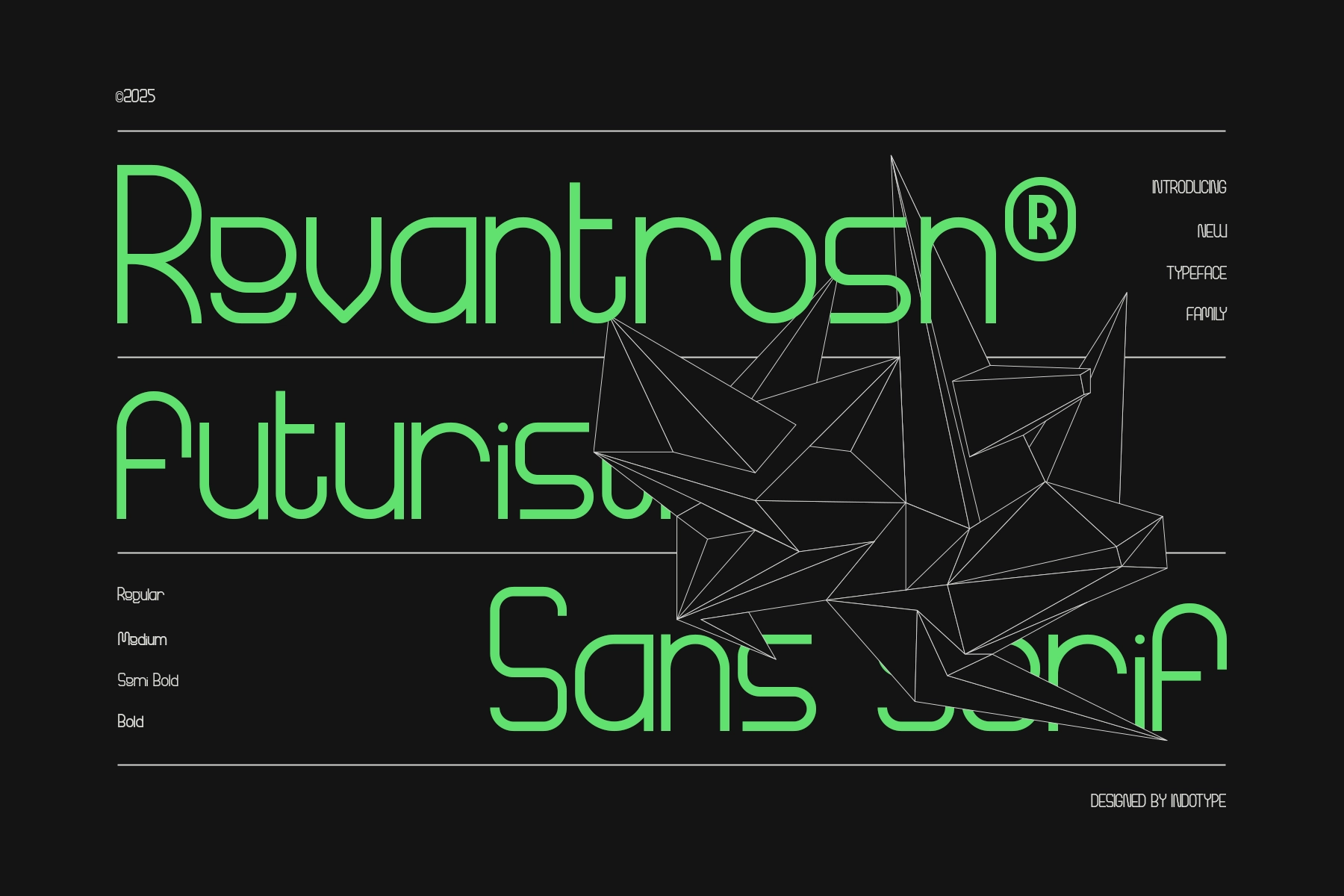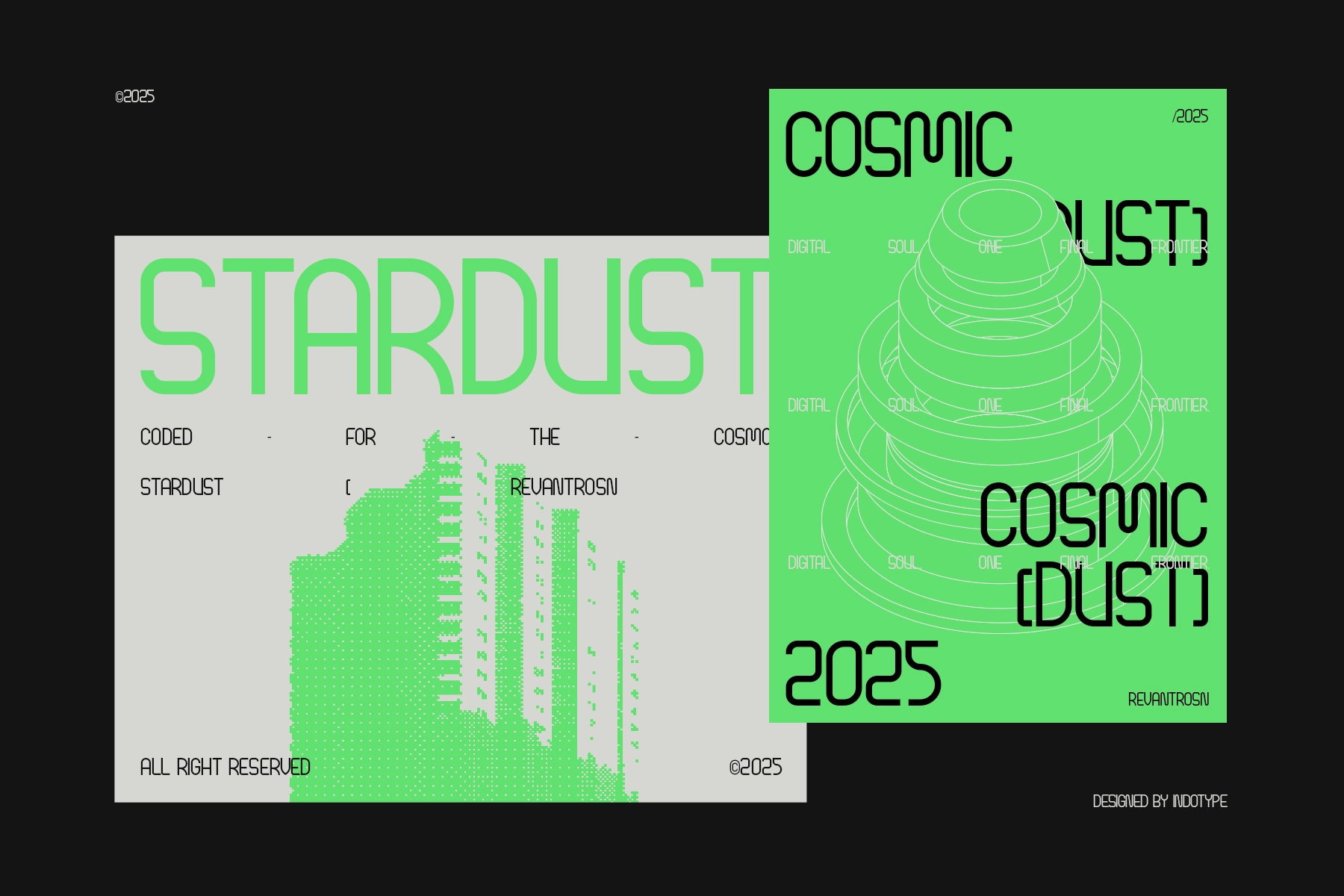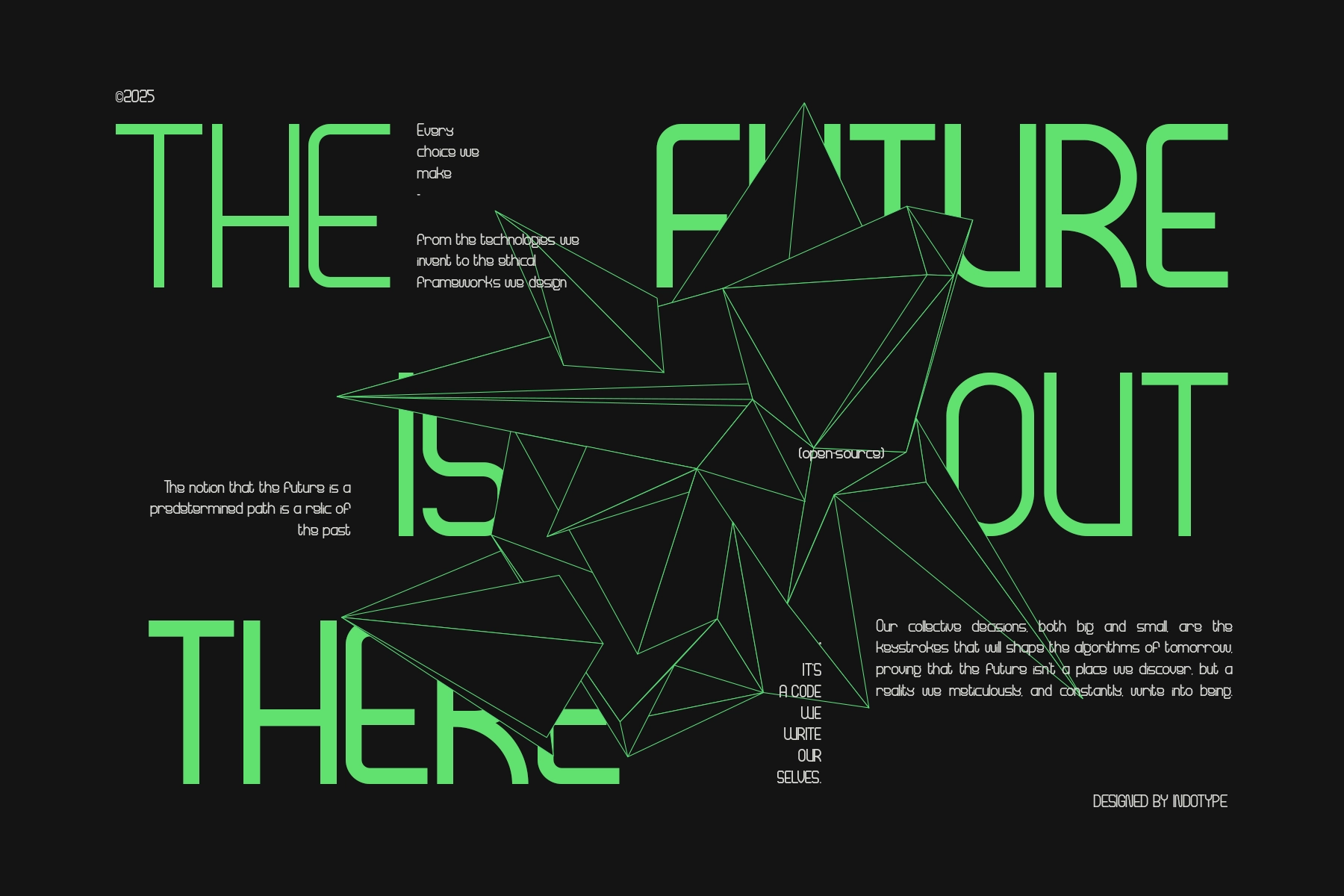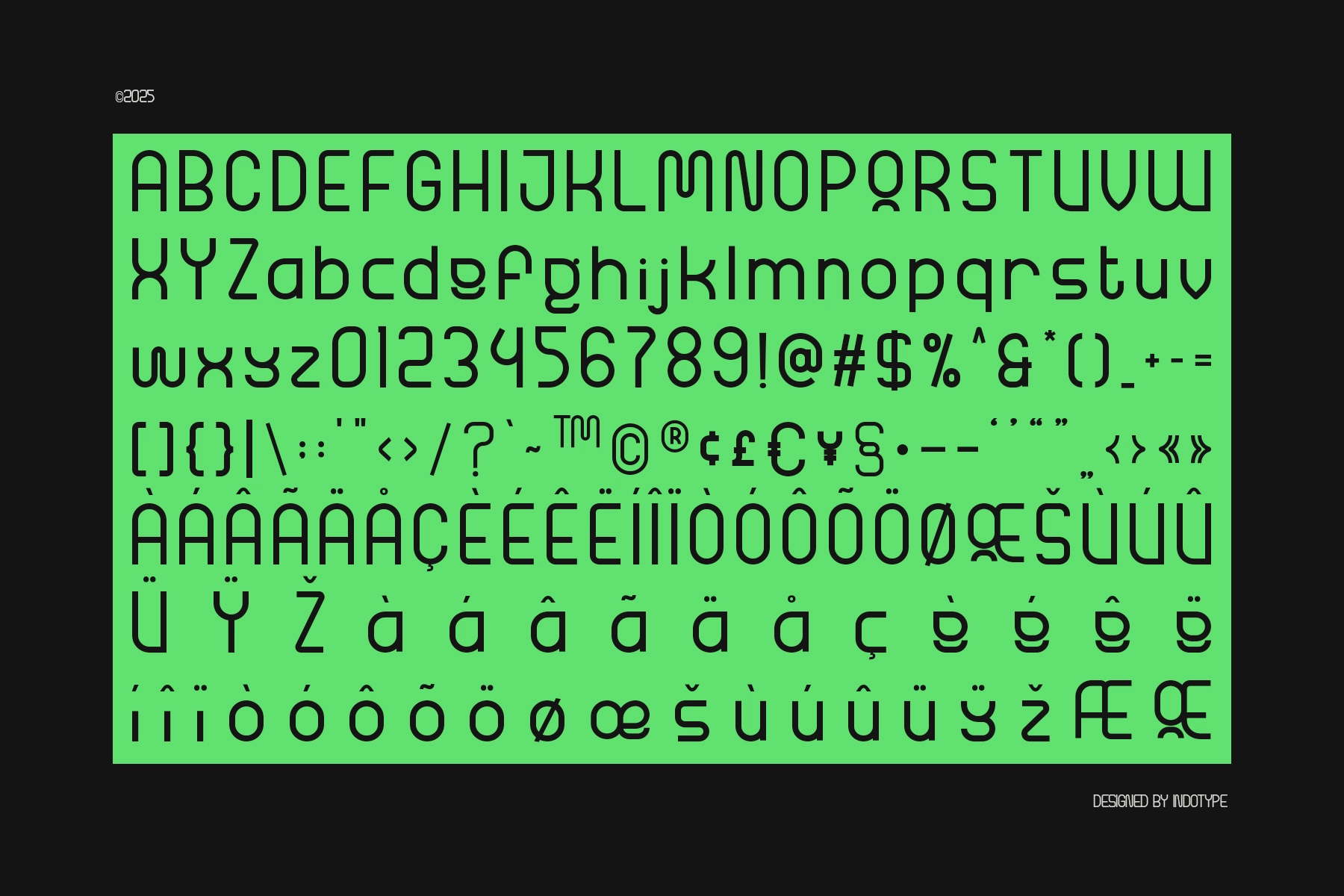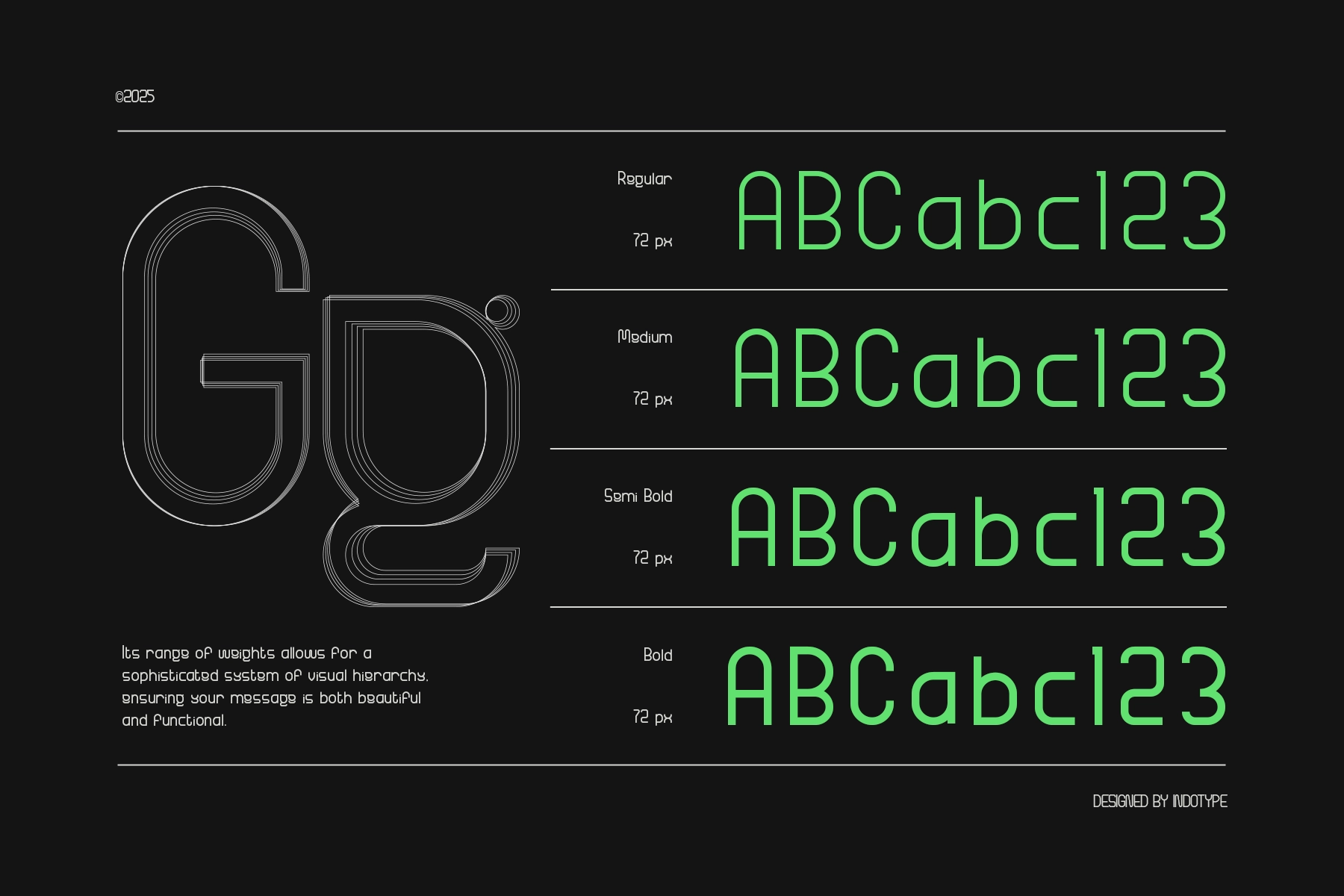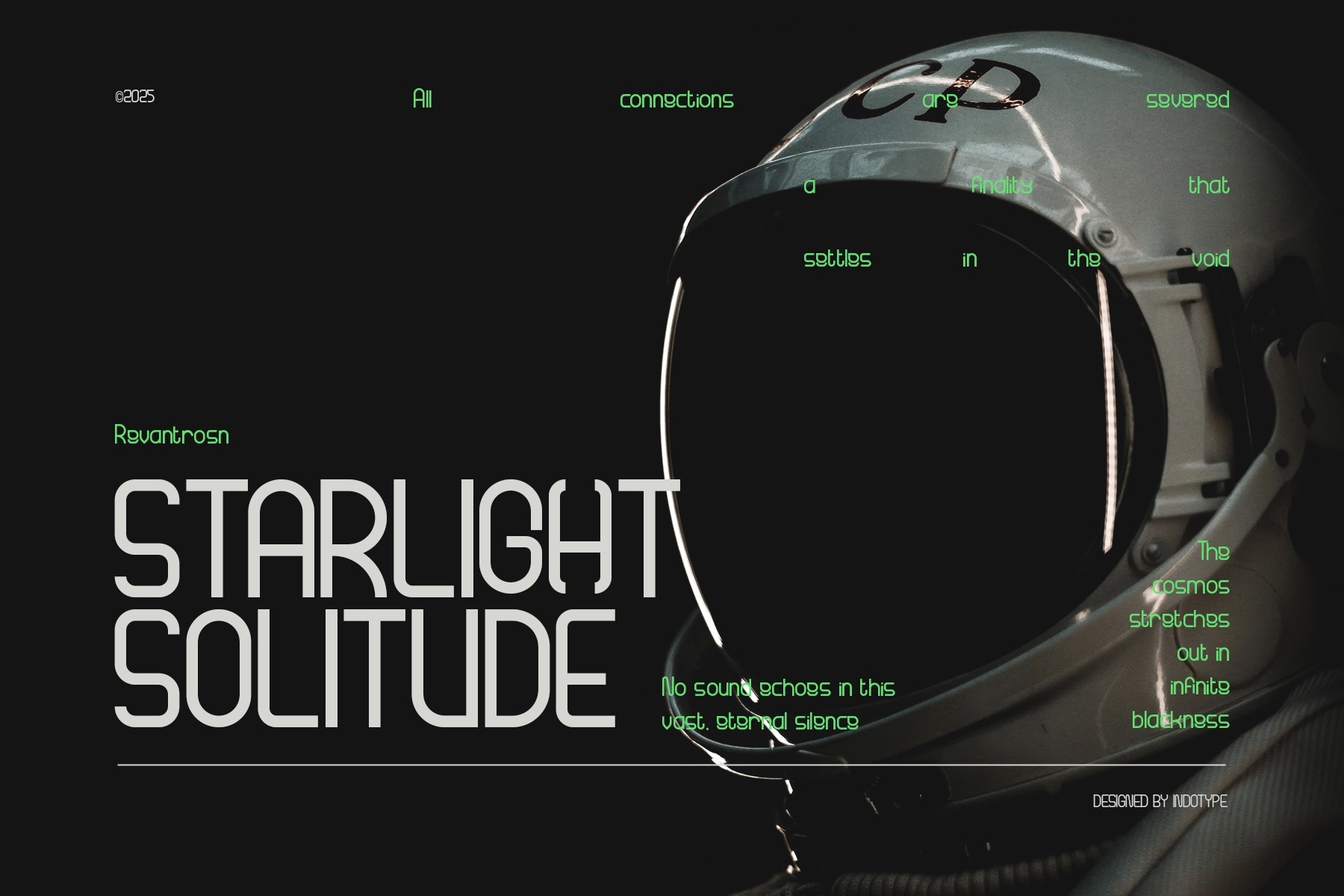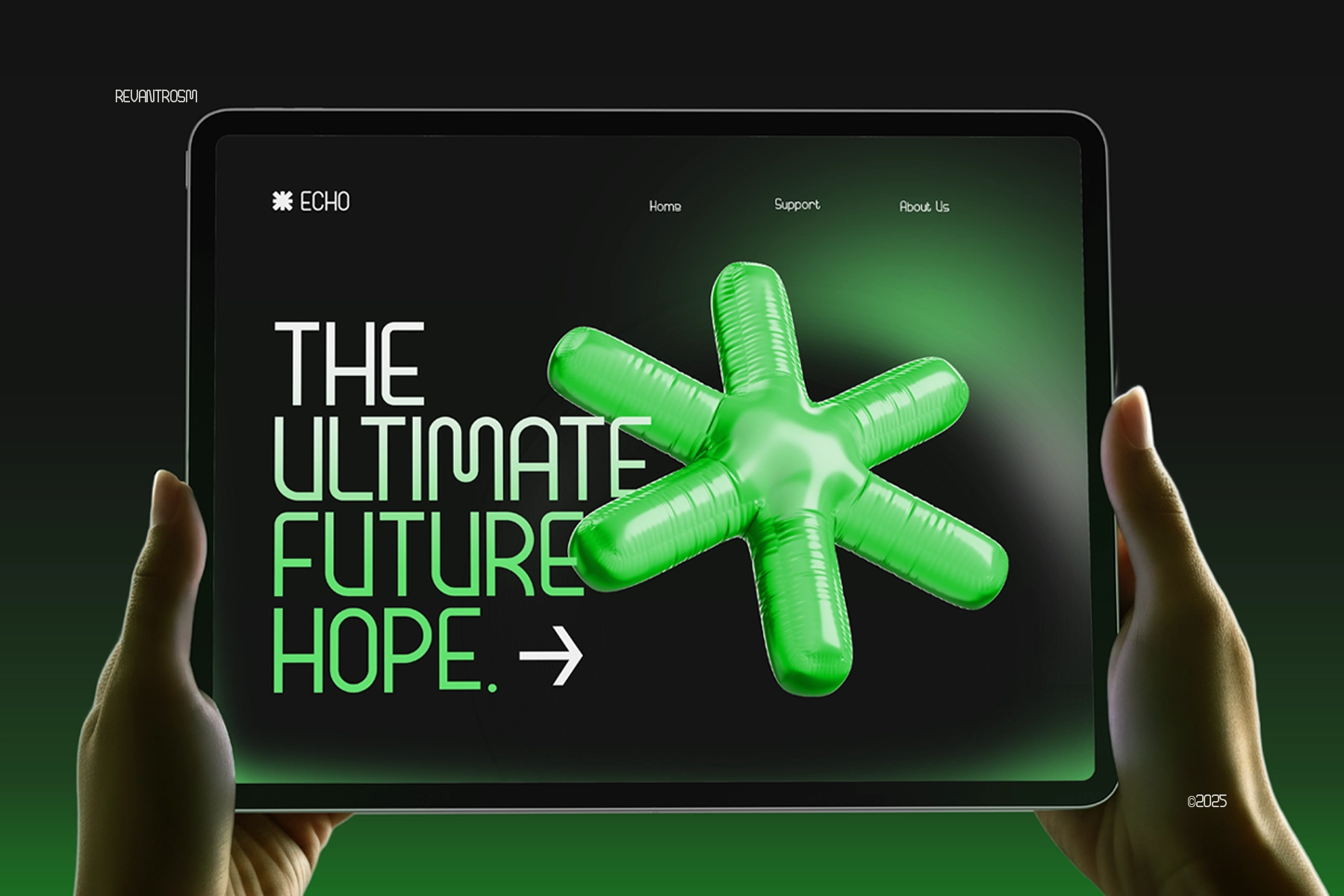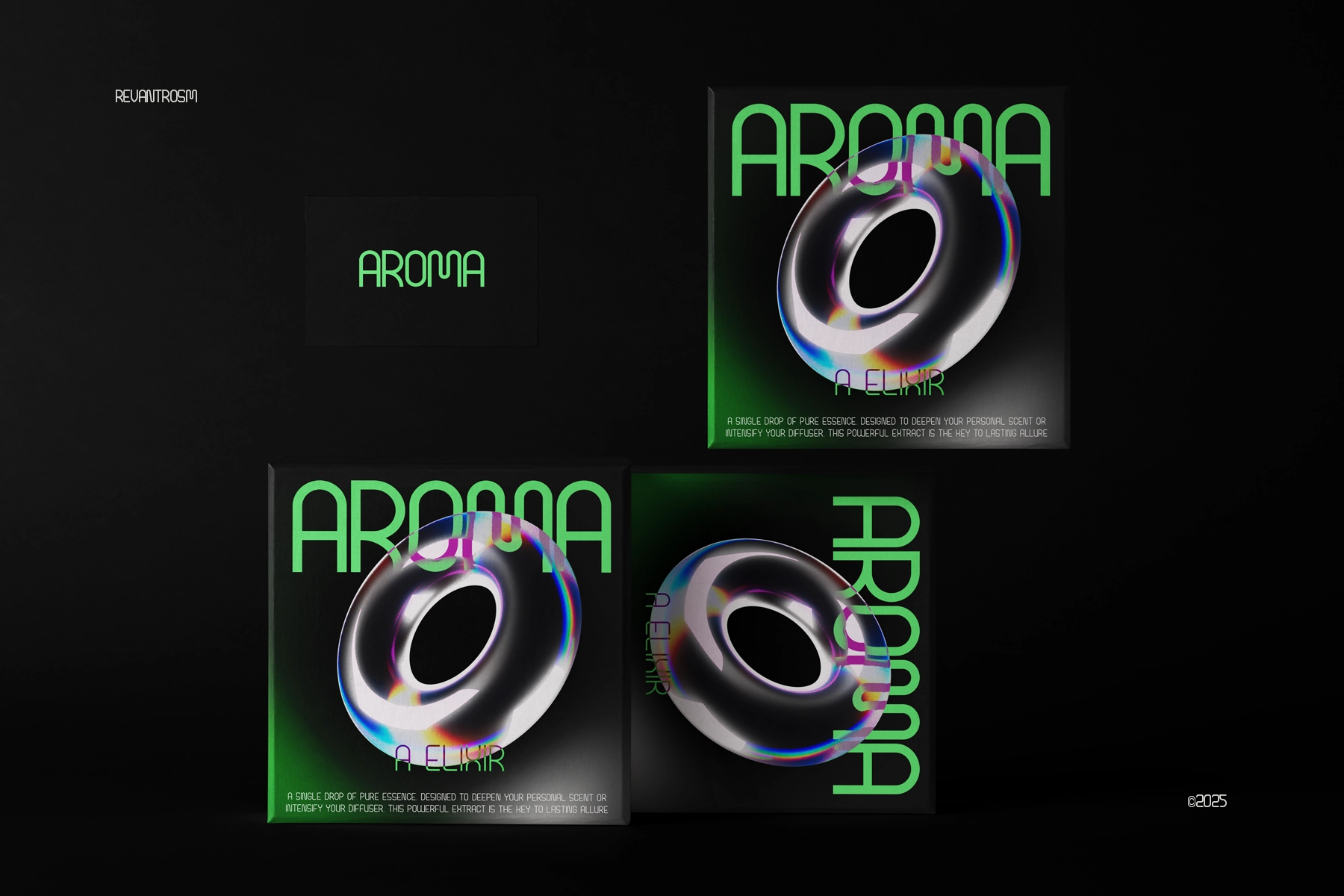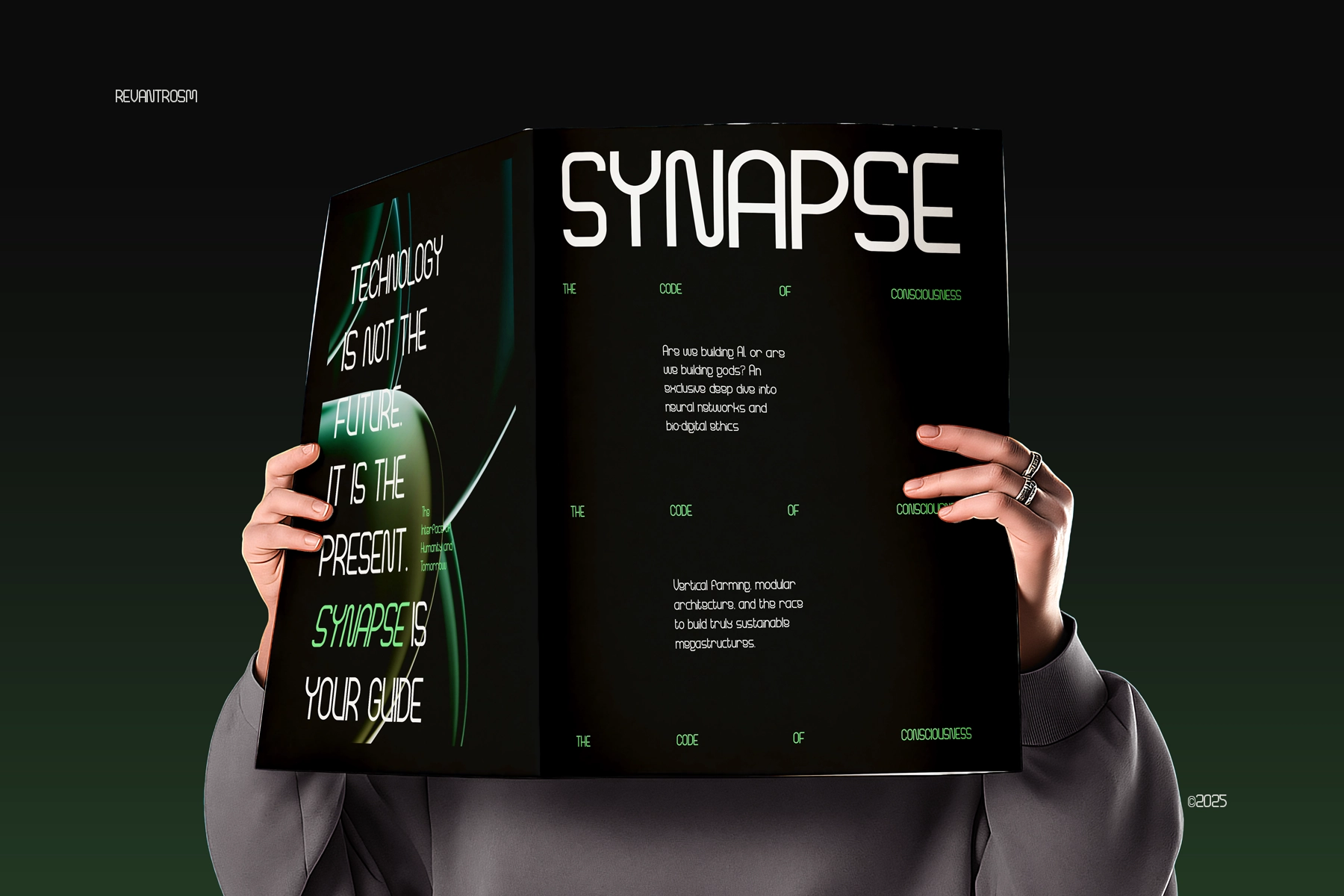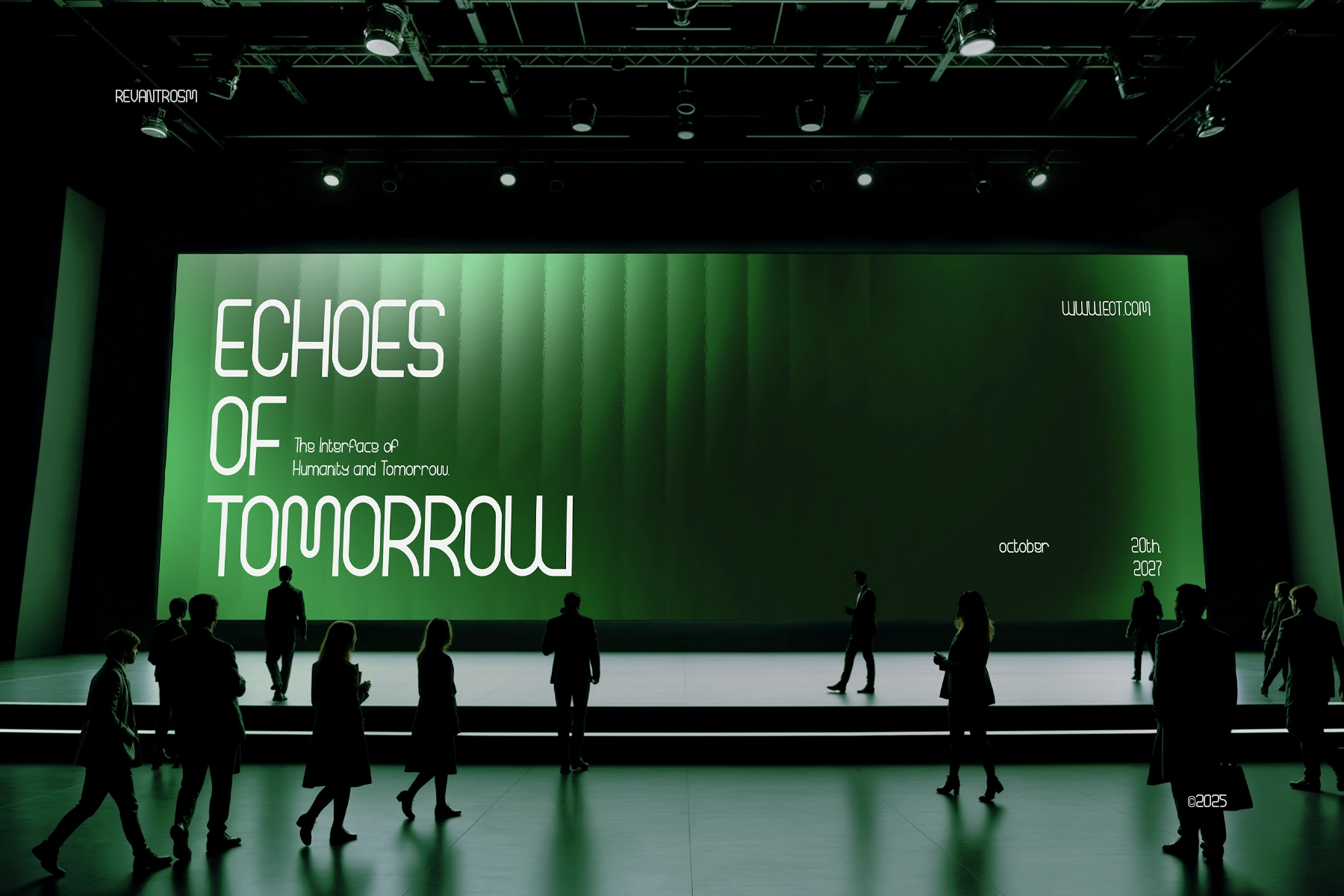
Revantrosn - Futuristic Sans Serif Font
The font is a futuristic sans serif family with rounded terminals, narrow proportions, and a precise tech-code rhythm. Its geometric shapes give titles a sleek digital presence, with enough character to avoid the usual spaceship-menu cliché.
Use Revantrosn for sci-fi branding, esports identities, UI concepts, tech posters, game titles, app headers, digital product launches, music visuals, crypto graphics, conference branding, editorial covers, motion graphics, and more. The four-weight range supports clear hierarchy, from slim interface labels to bold display typography.
- 4 weights: Regular, Medium, Semi Bold, Bold
- 2 Style: Regular, Italic